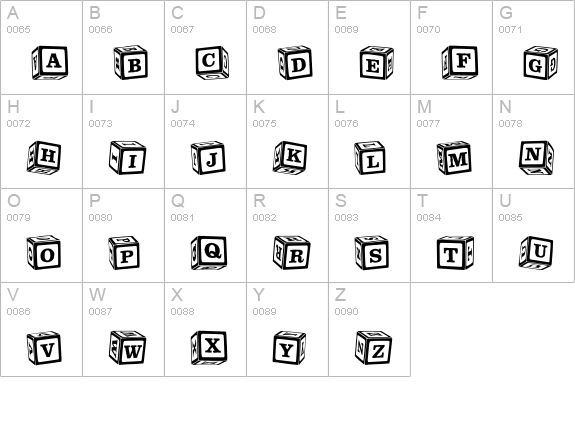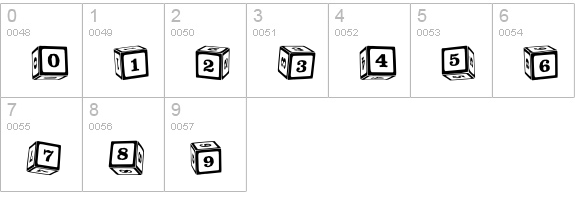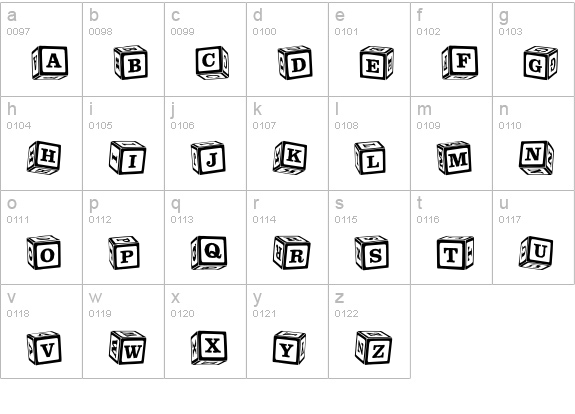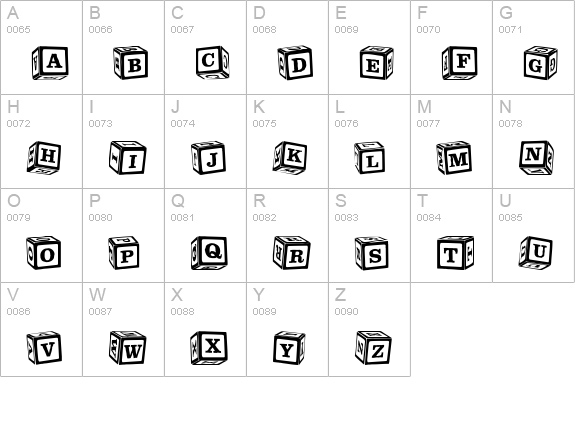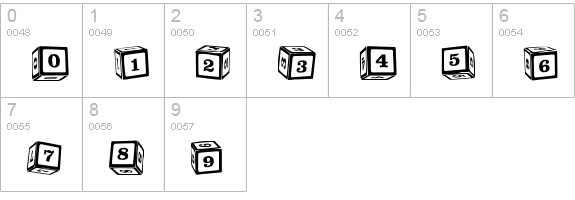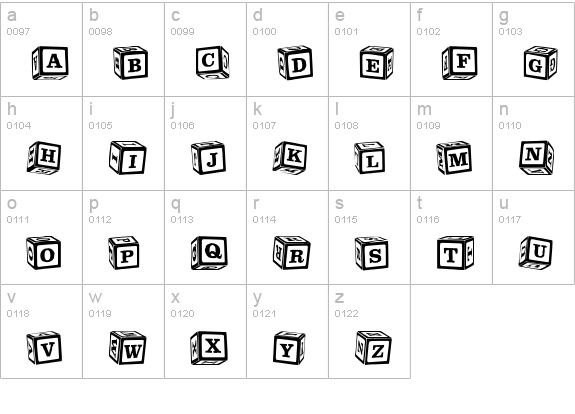
ChildsPlayBlocks Font Details
ChildsPlayBlocks font is a playful and fun typeface perfect for adding a whimsical touch to your designs. With its bold and chunky letterforms, this font is reminiscent of building blocks, making it a great choice for children's materials, posters, and creative projects. The rounded edges give it a friendly and approachable feel, making it an ideal choice for capturing the attention of young audiences. Best of all, ChildsPlayBlocks font is available for free download at FontsMarket.com. This means you can easily incorporate this charming font into your projects without any cost. Whether you're designing a birthday invitation, a children's book, or a playful logo, ChildsPlayBlocks font is sure to bring a sense of fun and creativity to your work. Download it today and start adding a touch of playfulness to your designs!